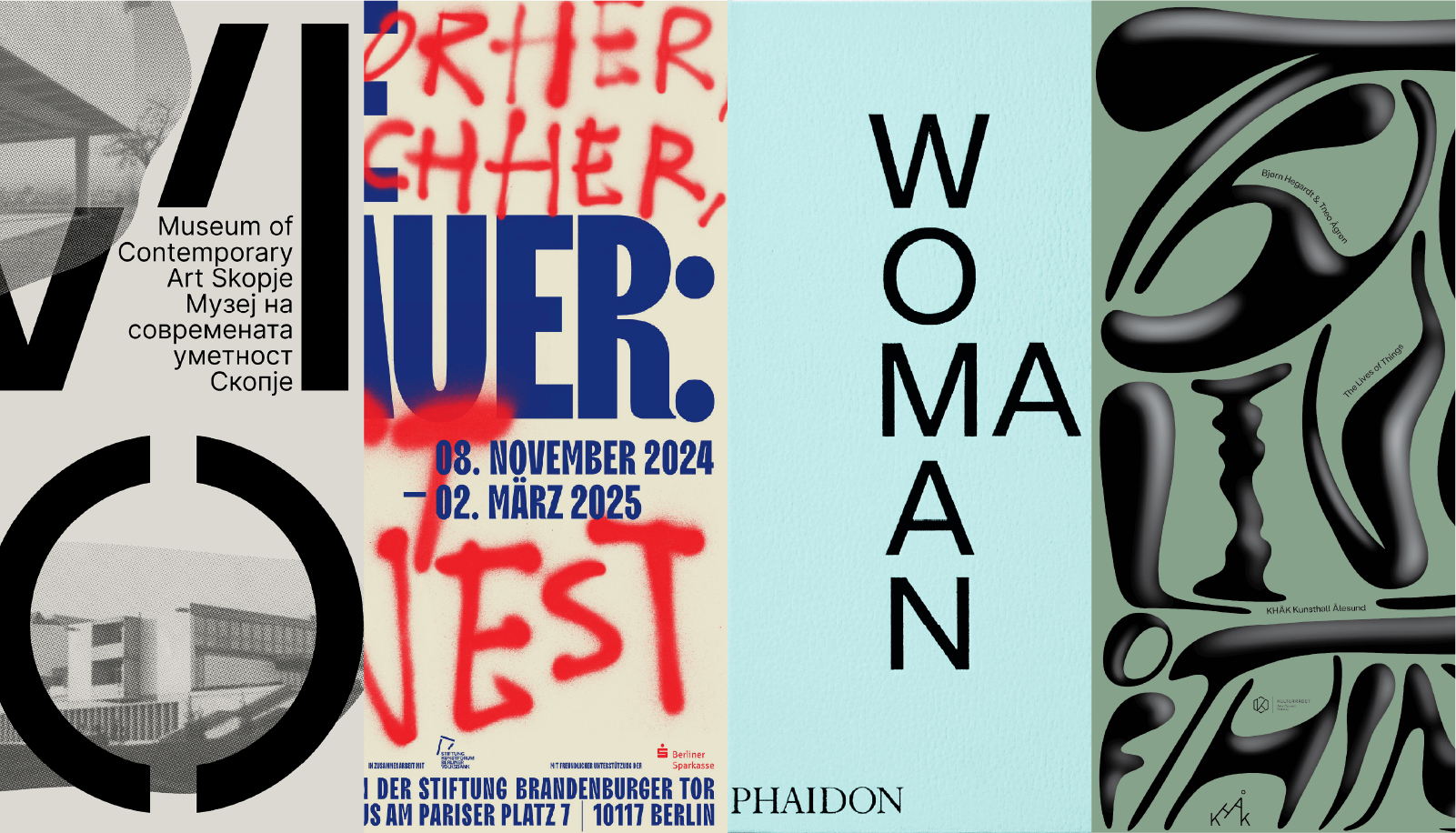
Talk: Ariane Spanier
Rules Sans
A talk about graphic design where the grid is optional and the tools are improvised. All things type, some large letters, and very few rules—chasing typography when it outgrows the page.